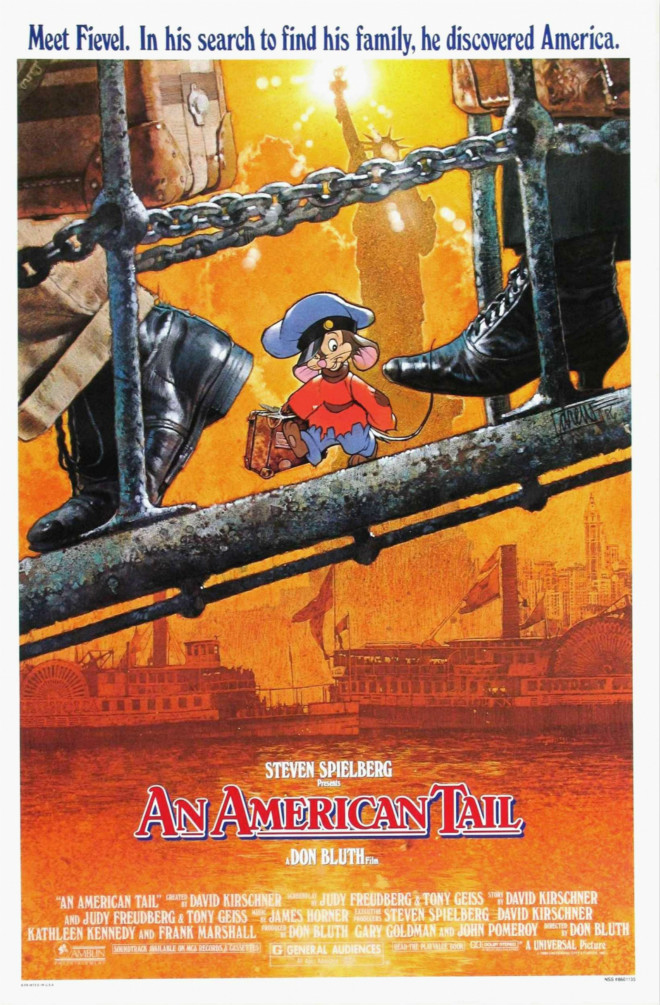
An American Tail Font
AnimationAn American Tail is a 1986 animated film produced by Steven Spielberg's Amblimation animation studio and released by Universal Pictures. The film follows the story of Fievel Mousekewitz, a young Jewish mouse who emigrates to America with his family in search of a better life. However, he gets lost and must find a way to reunite with his family.